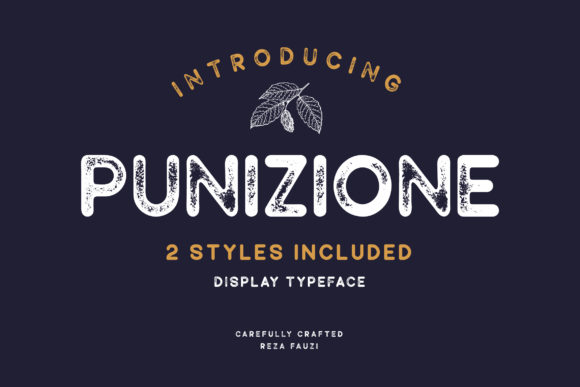
Unleash your creative flair with Punizione Font, a striking sans serif font family that exudes vintage charm with a modern twist! Crafted by the talented team at Grezline Studio, Punizione boasts two captivating styles: Clean and Stamp.
Dive into the Clean style, where sharp lines and smooth curves dance together, creating a timeless elegance that effortlessly elevates your designs. Its crisp and clear strokes lend a touch of sophistication, making it perfect for logos, branding, headlines, and any project demanding a bold yet refined aesthetic.
Embark on a journey of grunge and texture with the Stamp style. Its rough, distressed edges and authentic stamp-like appearance add an edgy, urban vibe to your creations. Unleash your inner artist and create designs that ooze character and personality. From posters and flyers to social media graphics and packaging, the Stamp style is your perfect companion for making a statement.
Punizione's versatility knows no bounds. Whether you're a seasoned designer or just starting, Punizione provides the creative freedom to transform your ideas into stunning realities. Its diverse range of applications includes logos, branding, posters, flyers, social media graphics, packaging, and more.
With Punizione at your fingertips, your designs will radiate a unique charm that captivates and engages your audience. Let your creativity soar and turn your projects into masterpieces. Embrace the power of Punizione today and embark on a design journey that will leave a lasting impression!